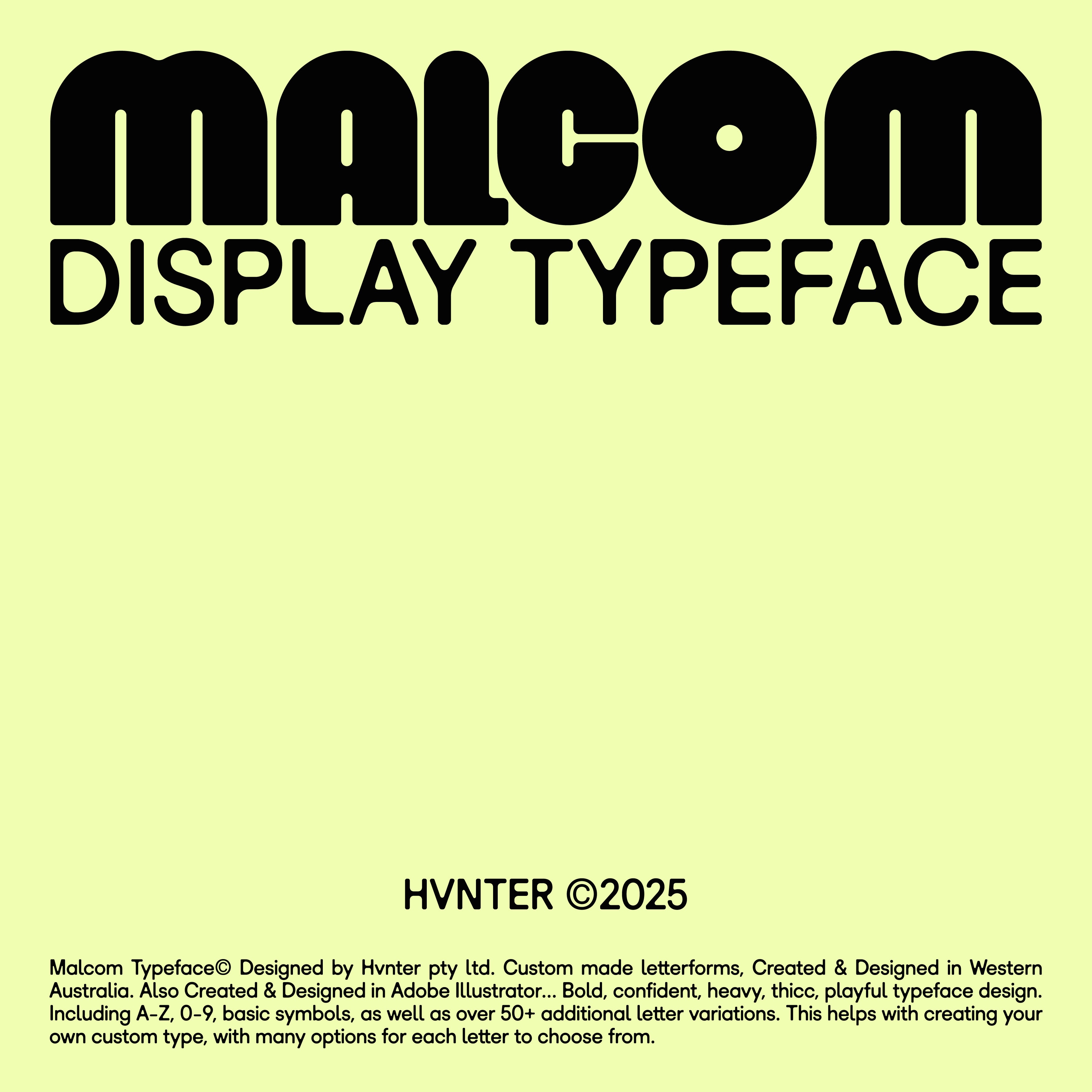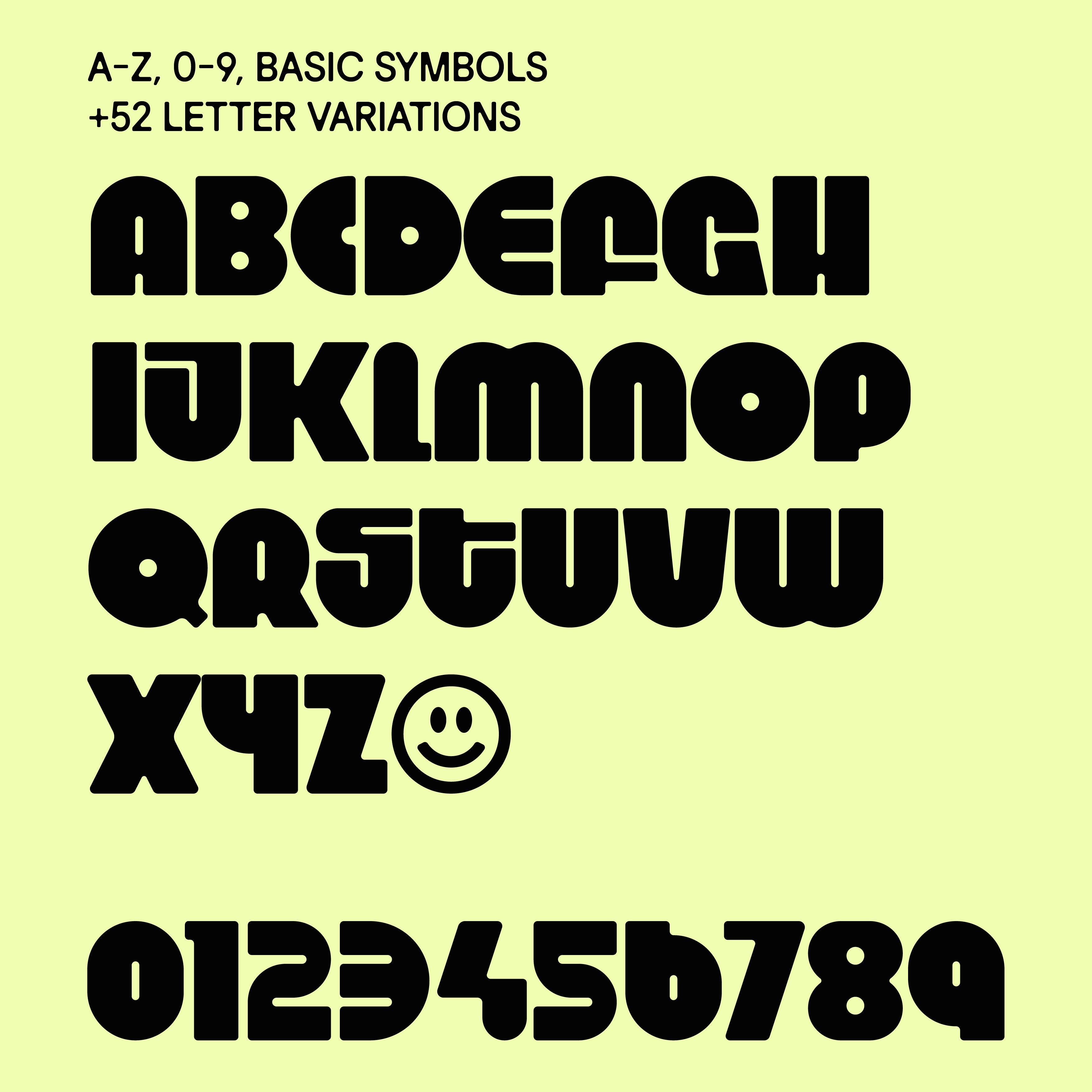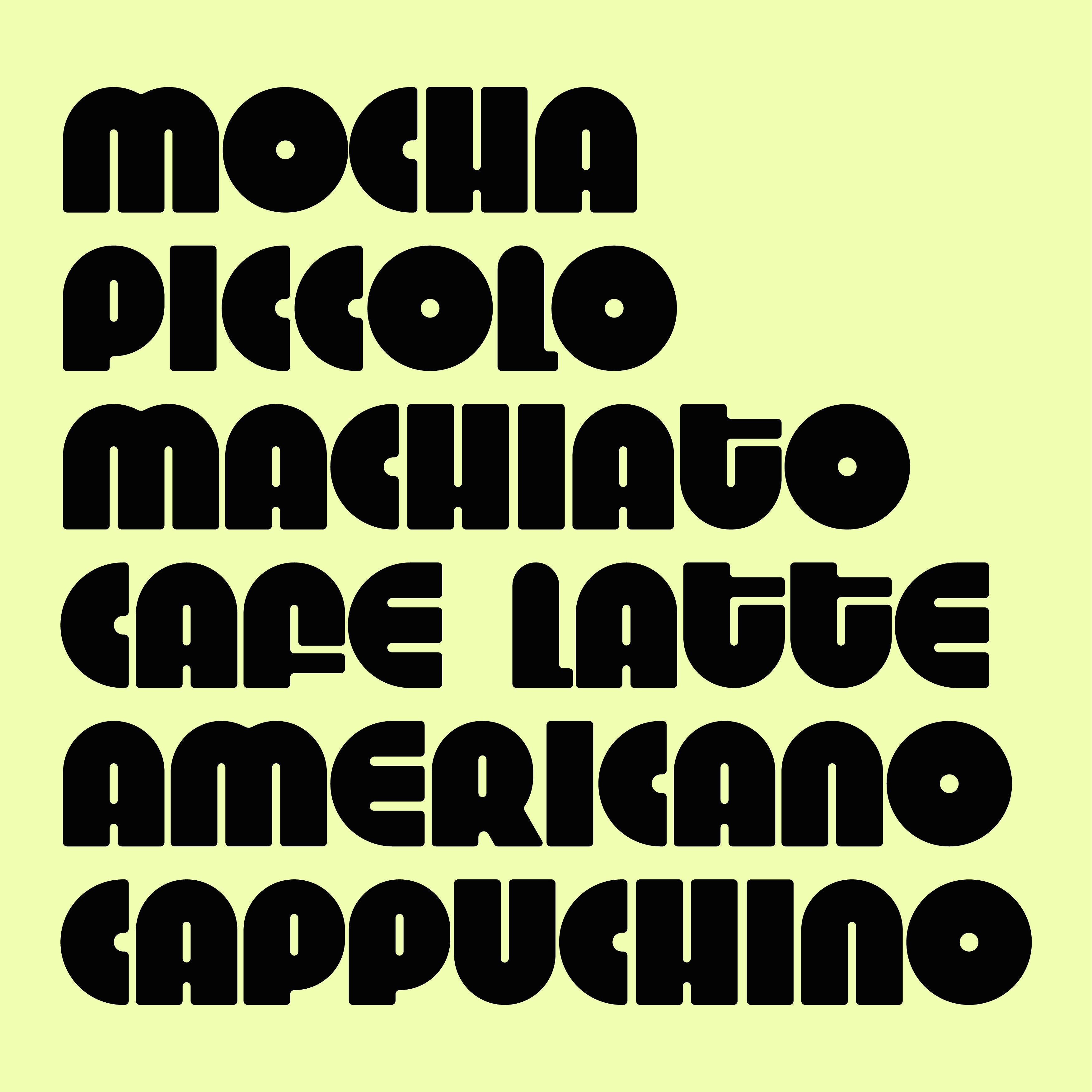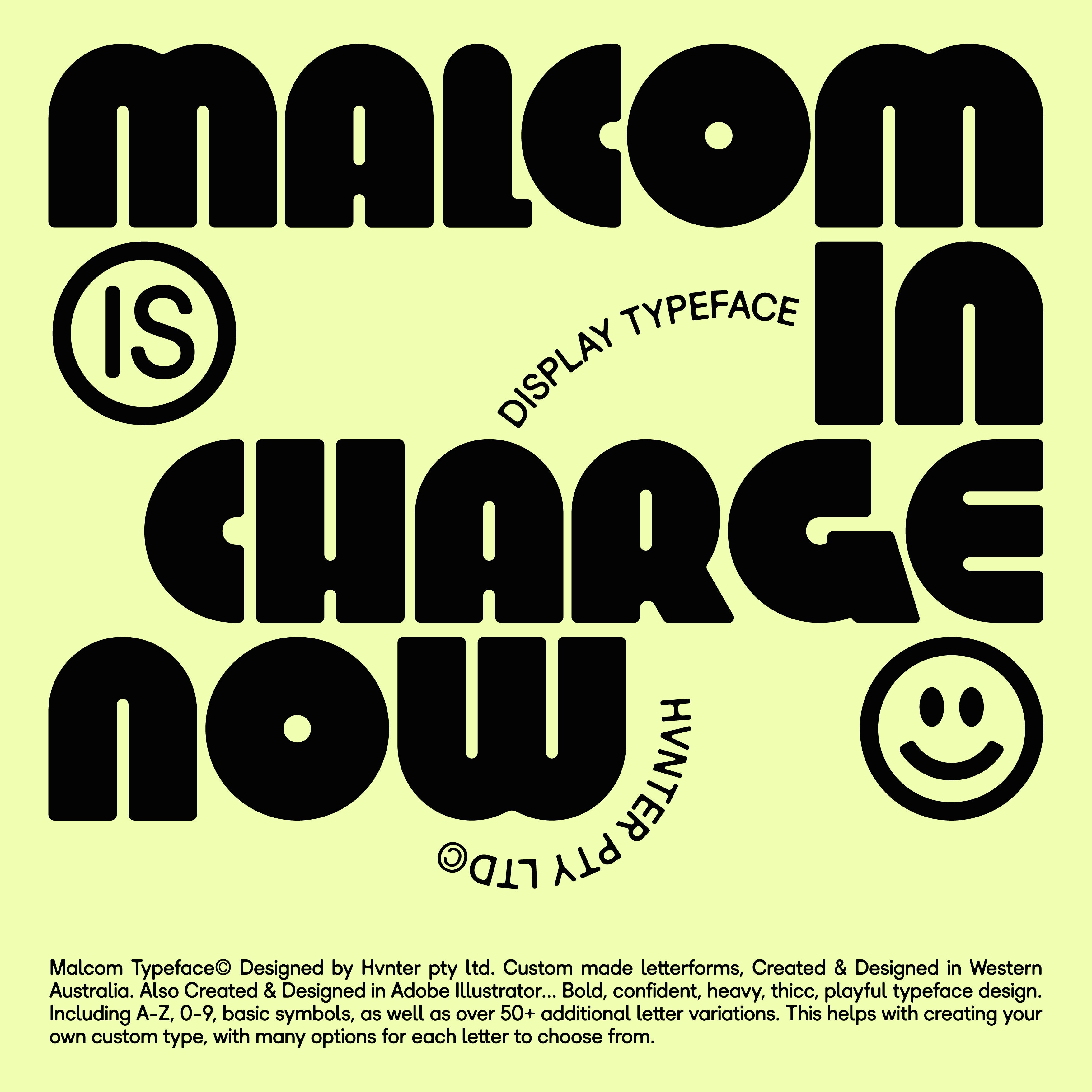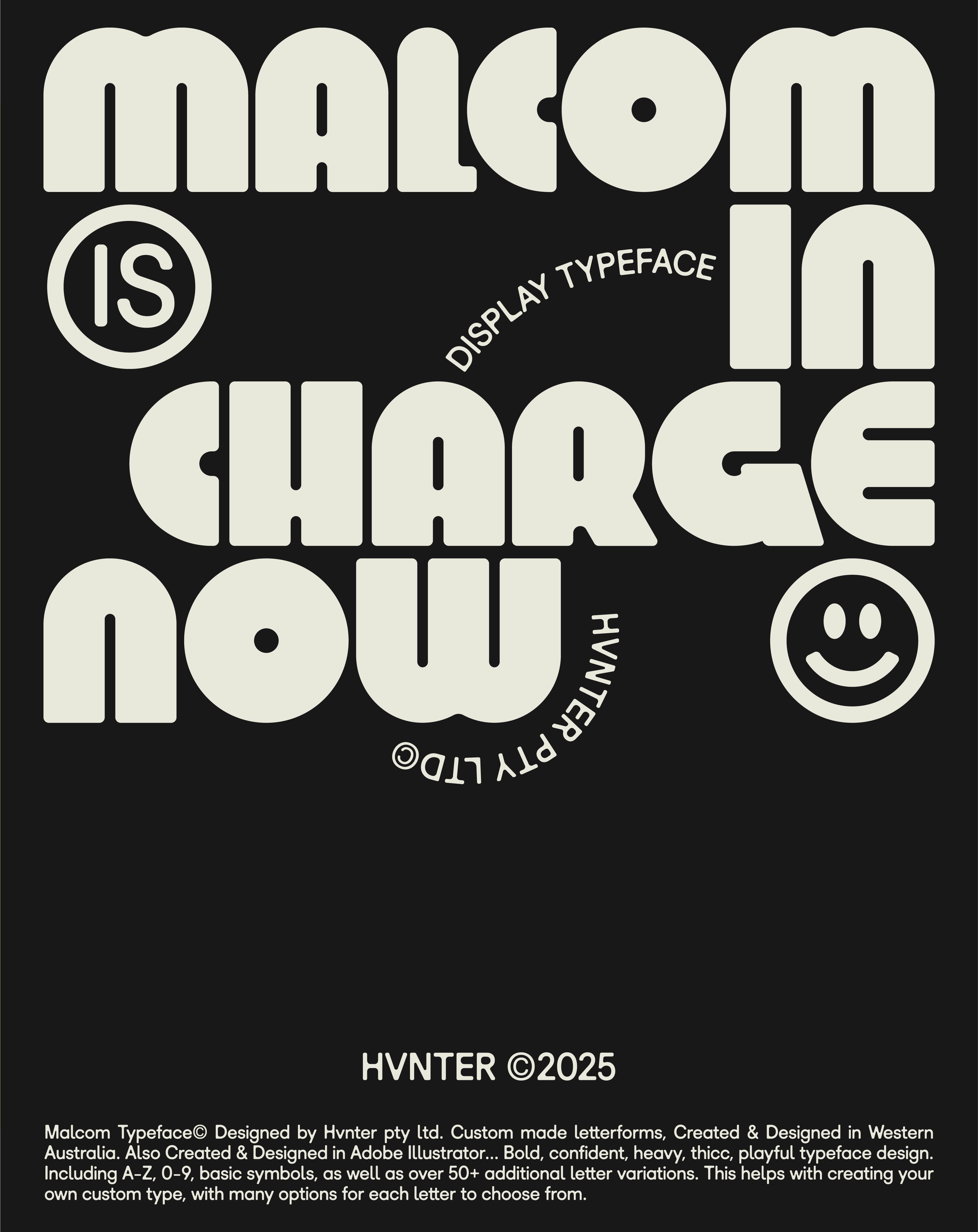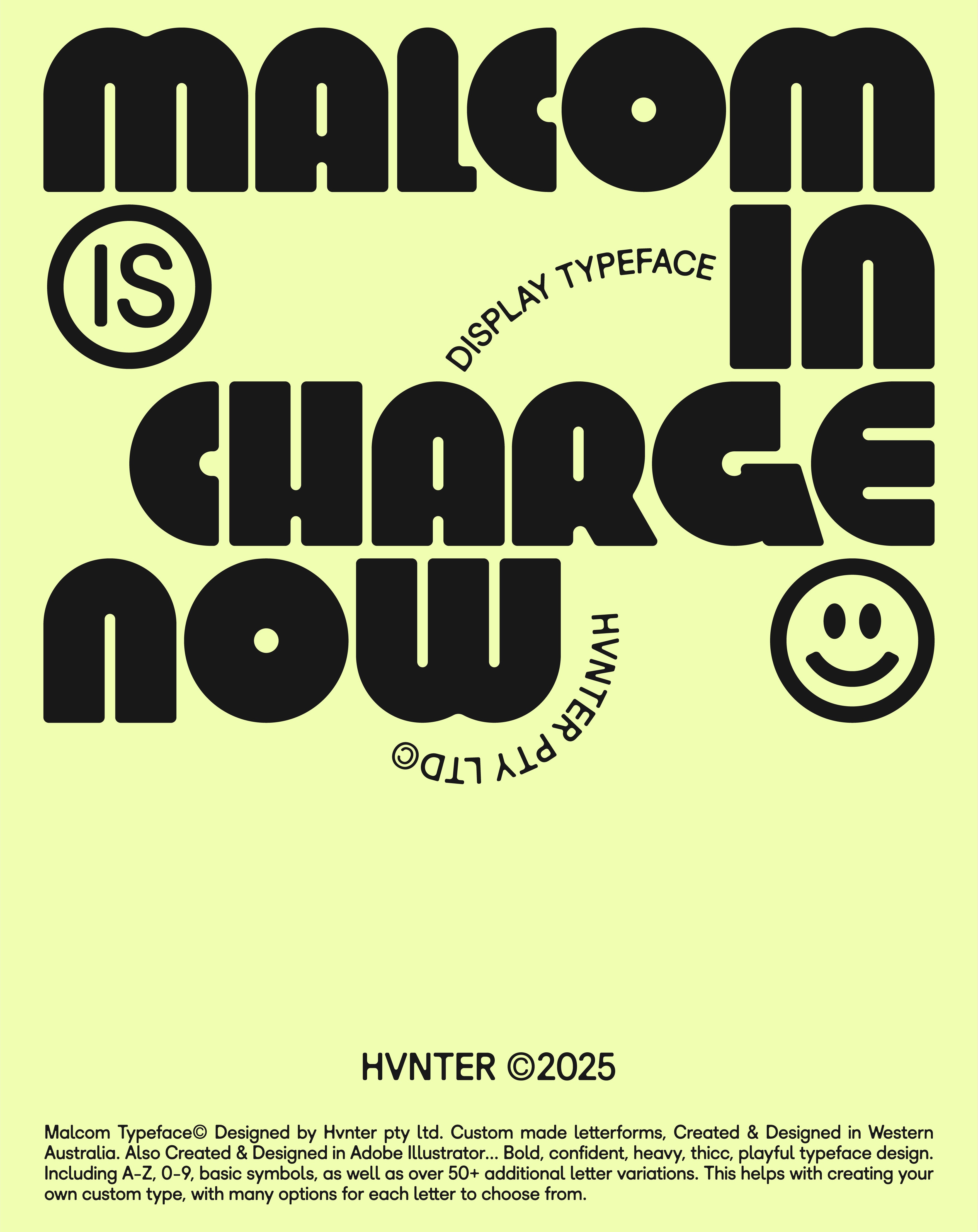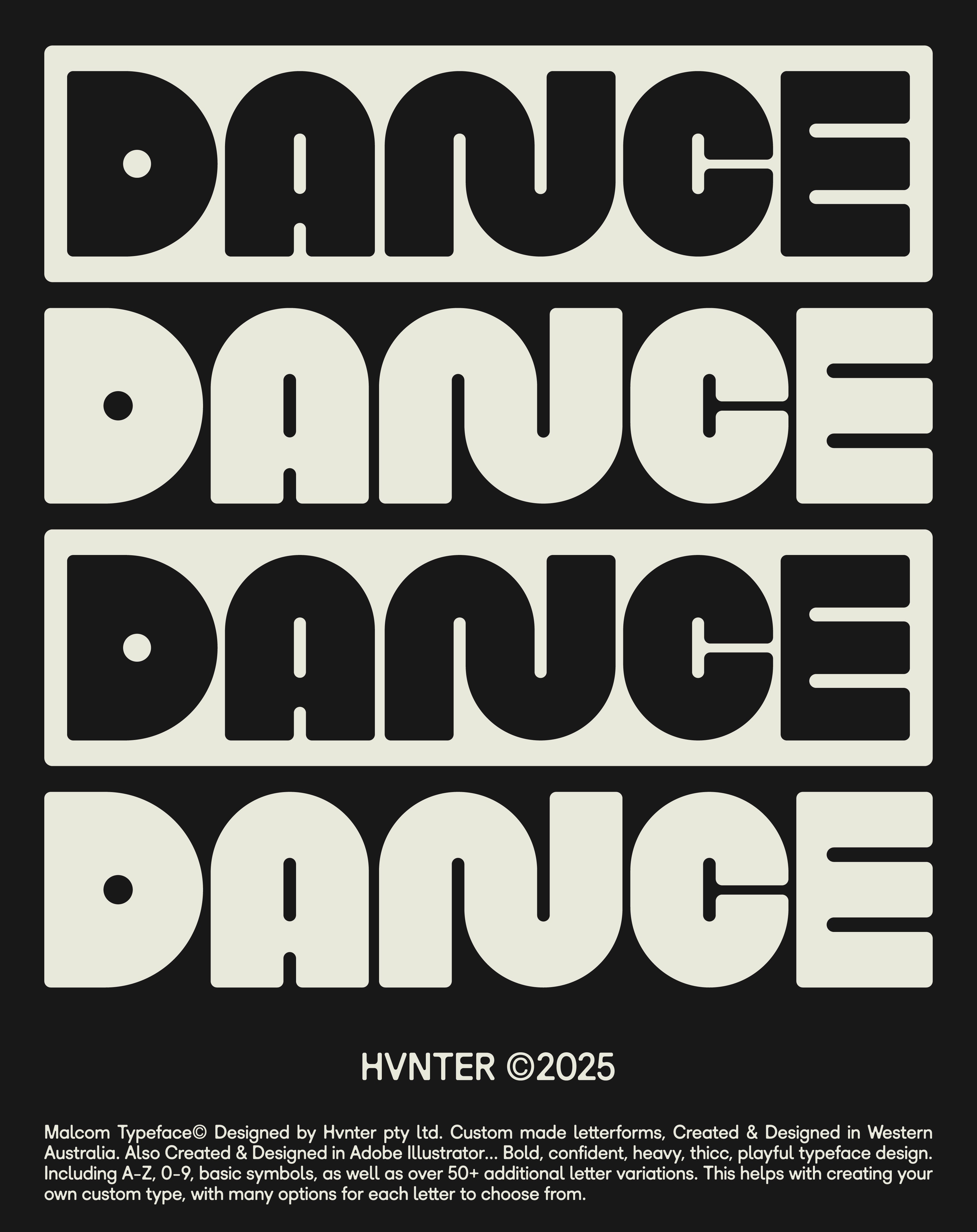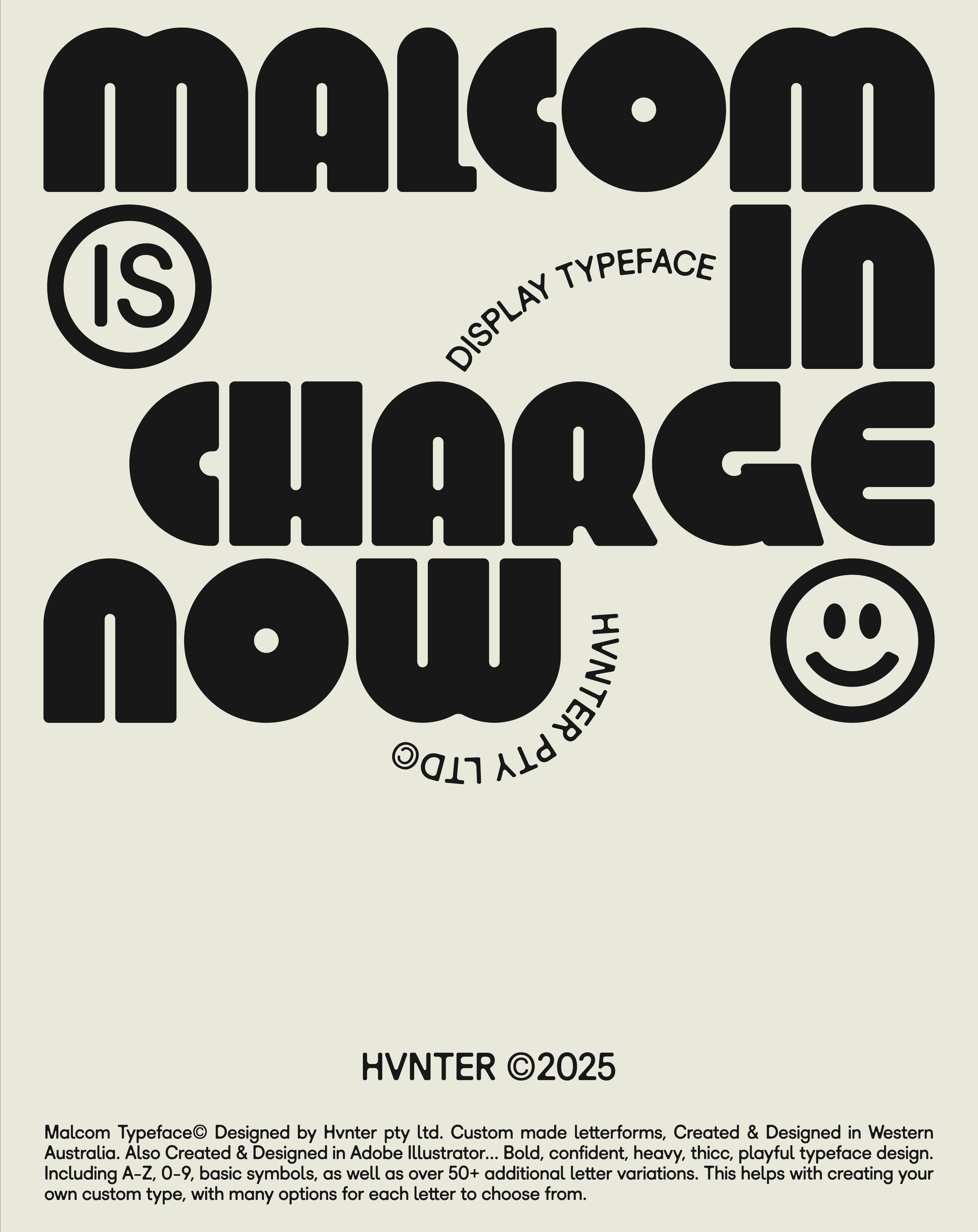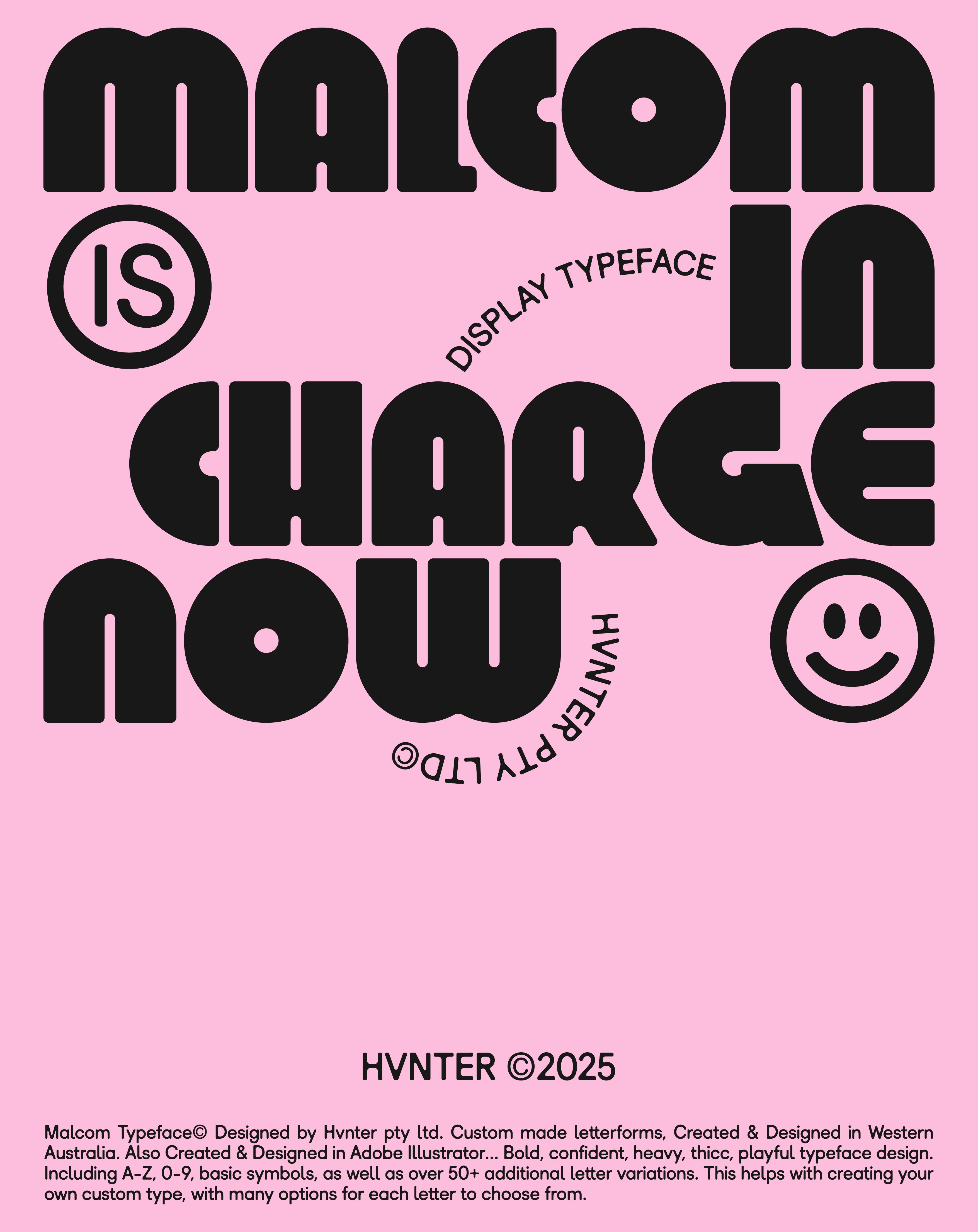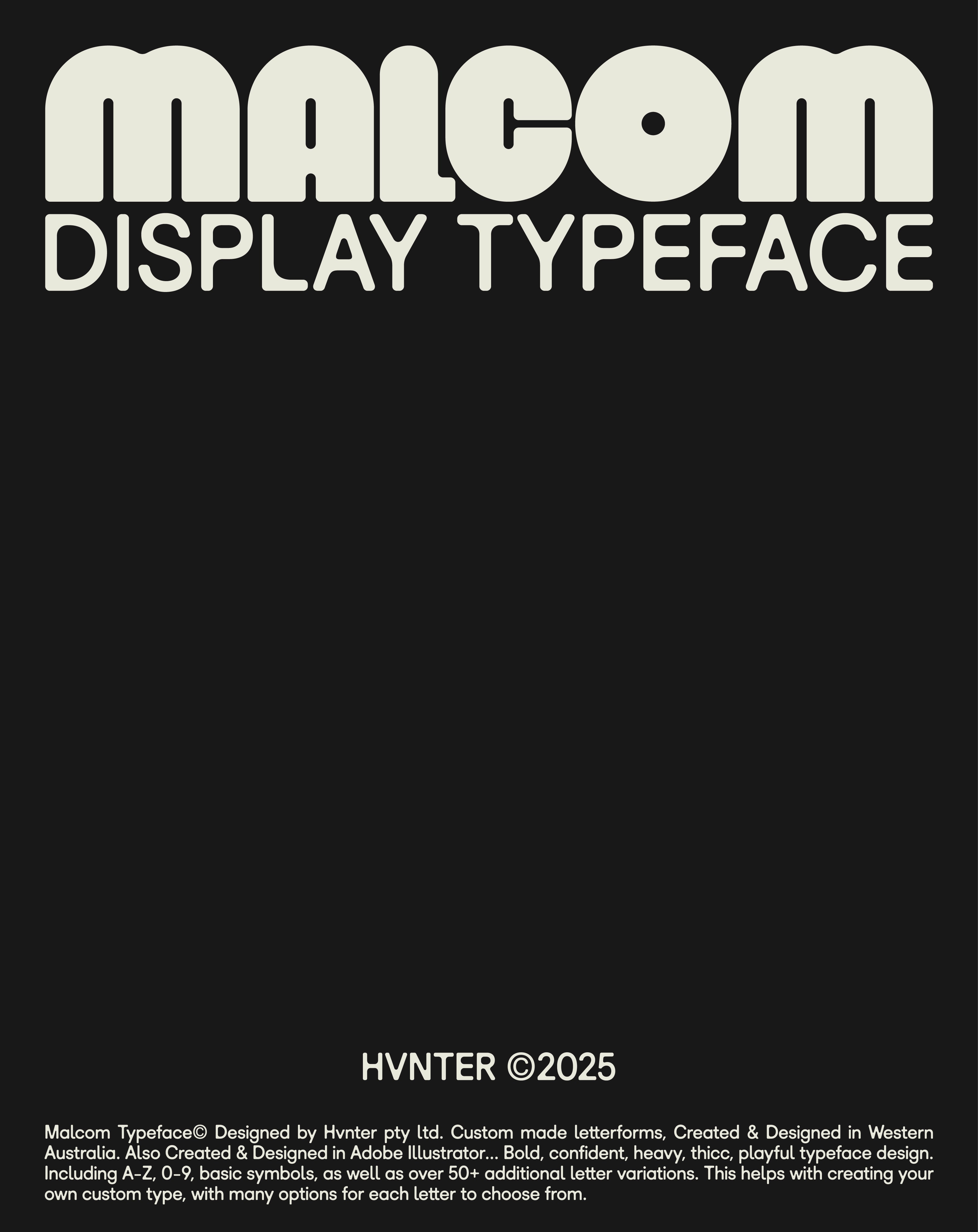
Malcom Typeface
Malcom Typeface is a bold and playful font that includes uppercase letters A-Z, numbers 0-9, basic symbols, and 52 letter variations. It is designed to offer a friendly and bubbly aesthetic suitable for various design projects.
Ideal for playful and bold graphic design projects. Perfect for posters, branding, social media graphics, and album covers, ensuring a vibrant and eye-catching visual impact.